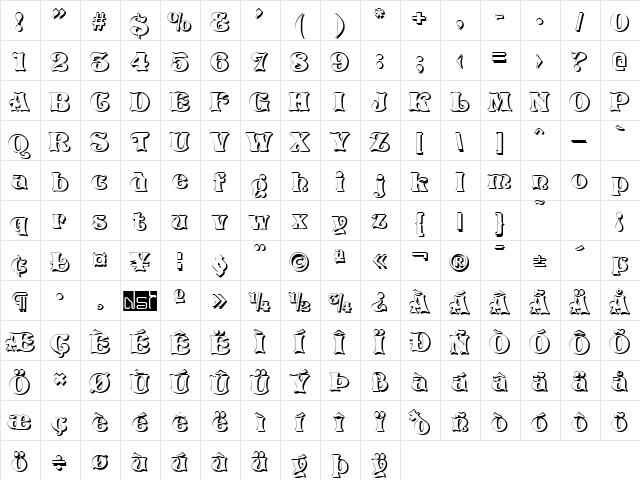
VivianFlourish DS Shadow Normal
Design Context for VivianFlourish DS Shadow Typeface
VivianFlourish DS Shadow brings ornamental detail and strong personality to headlines and identities, where visual impact matters more than quiet functionality.
Font Pairing: Pair with a clean neutral sans-serif for body copy to let VivianFlourish DS Shadow's character lead without overwhelming the composition.
Pro Tip: Use VivianFlourish DS Shadow exclusively at display sizes — it was designed to be seen, not read at length. Let a neutral companion handle body copy.